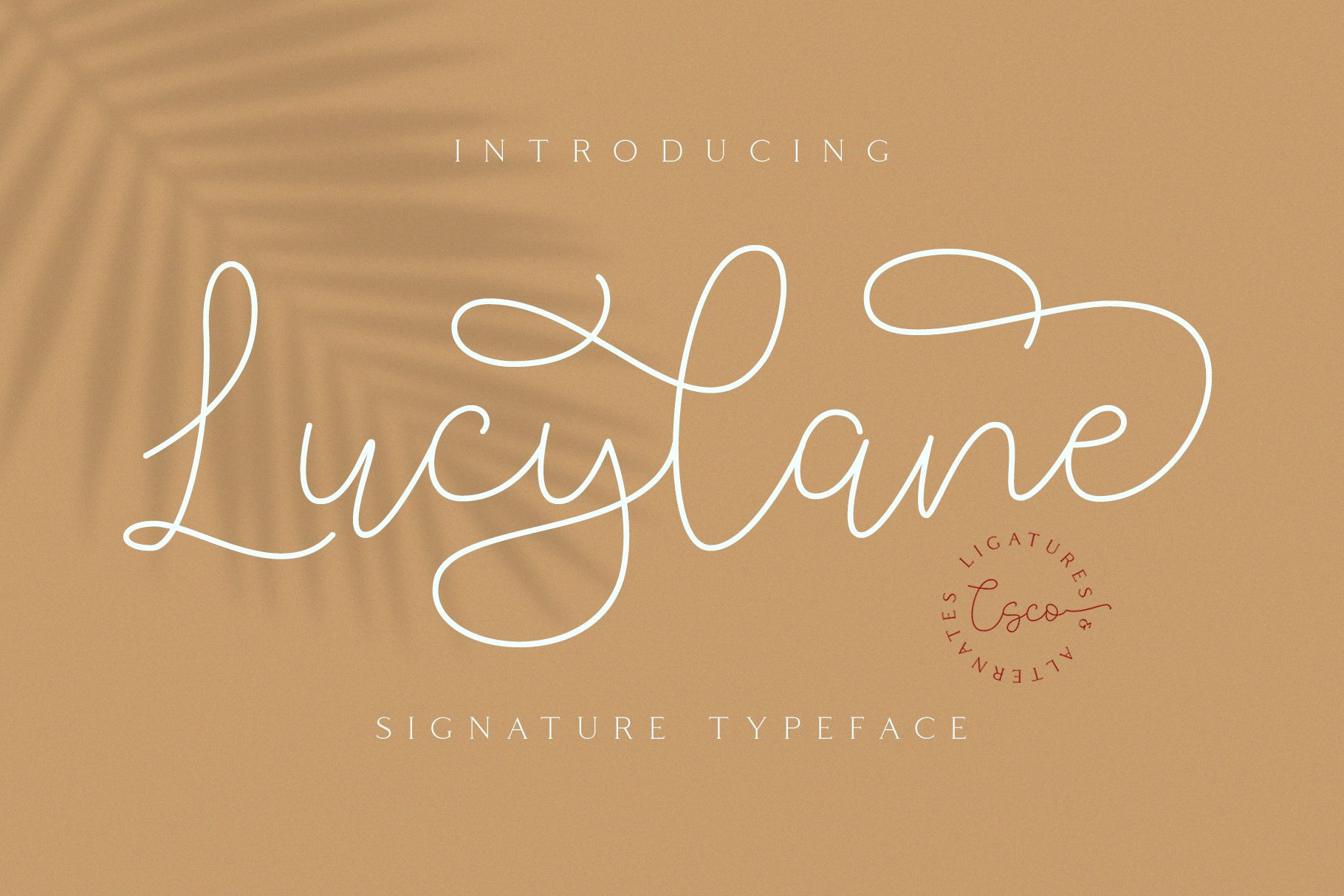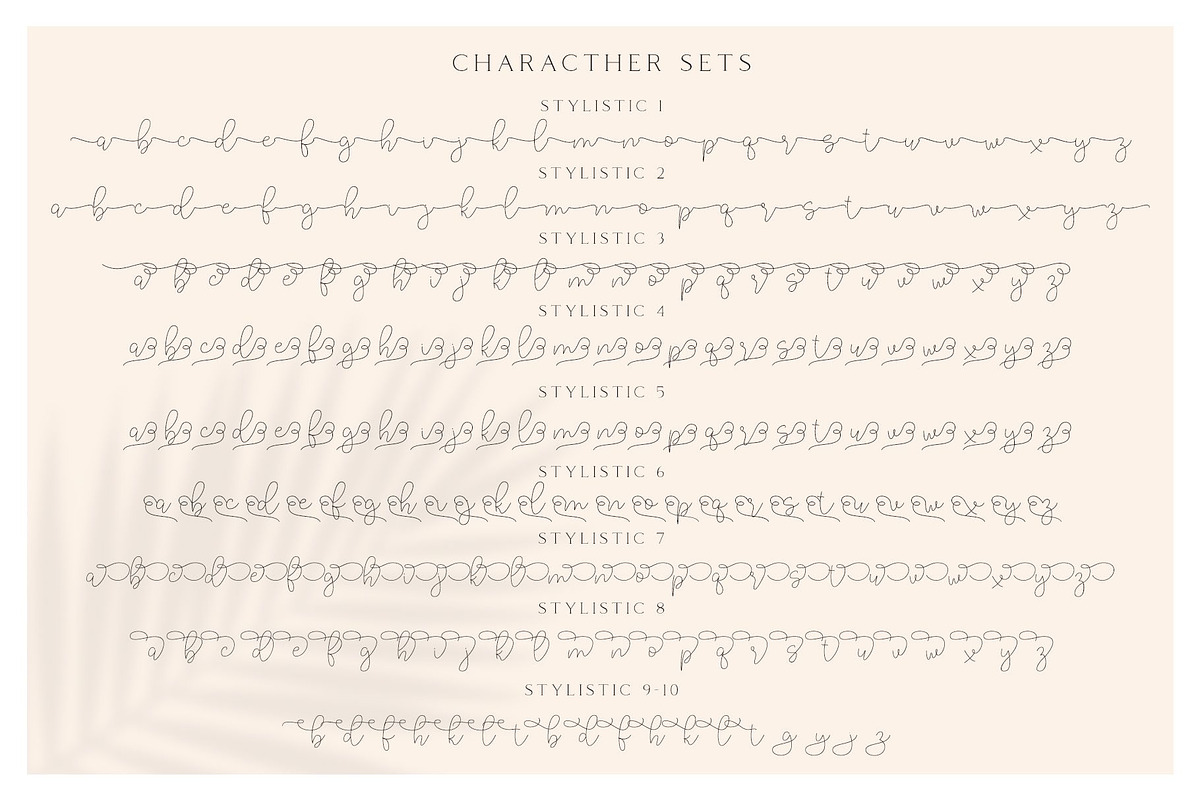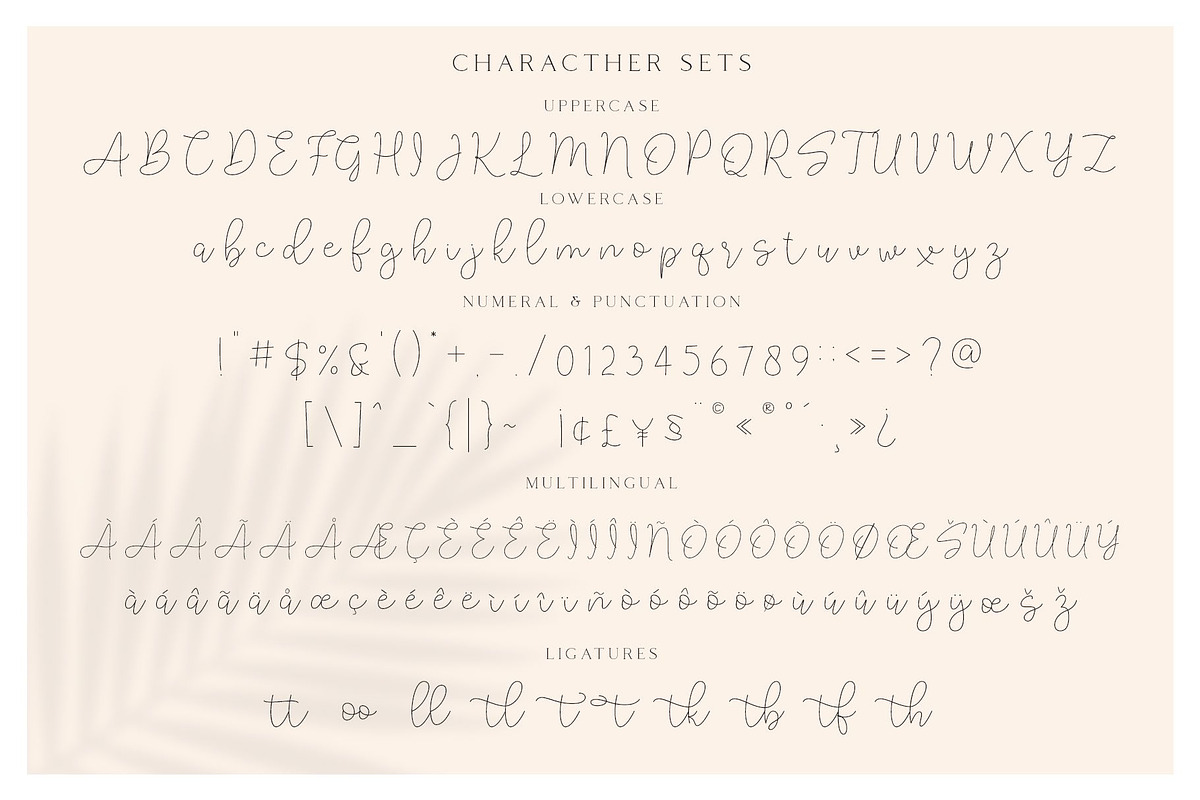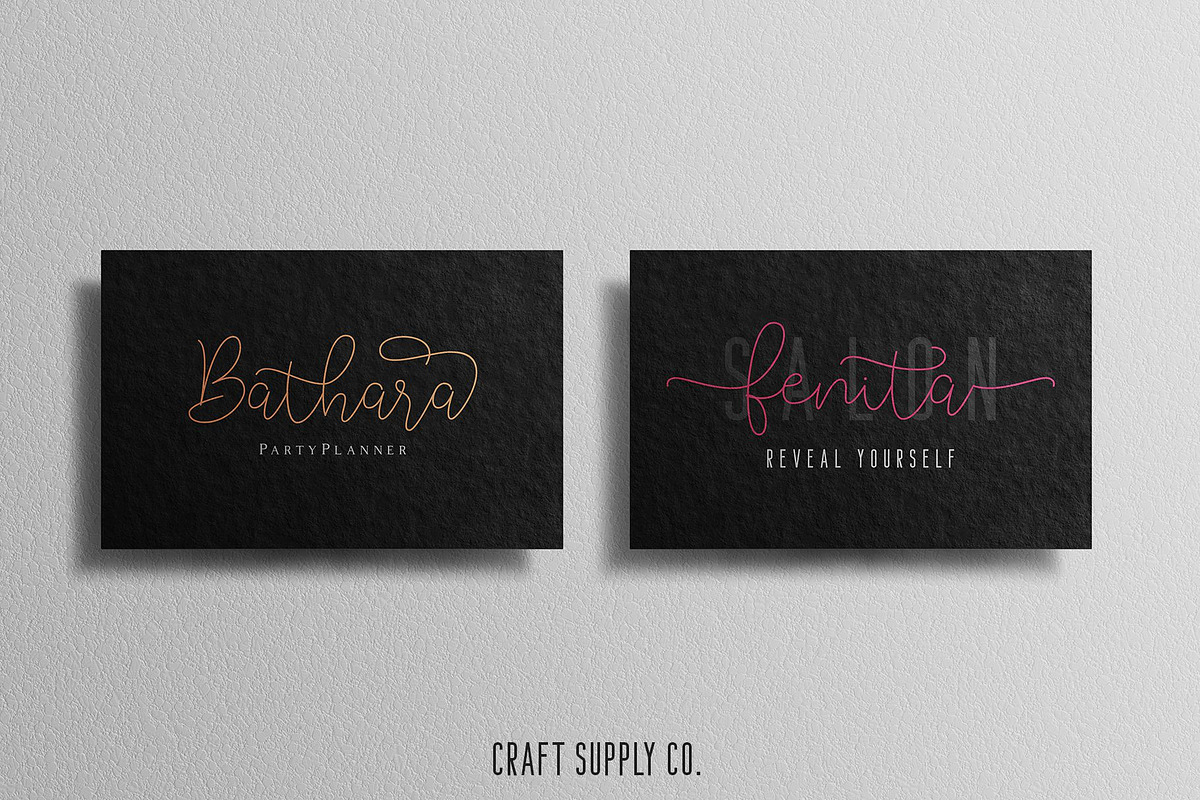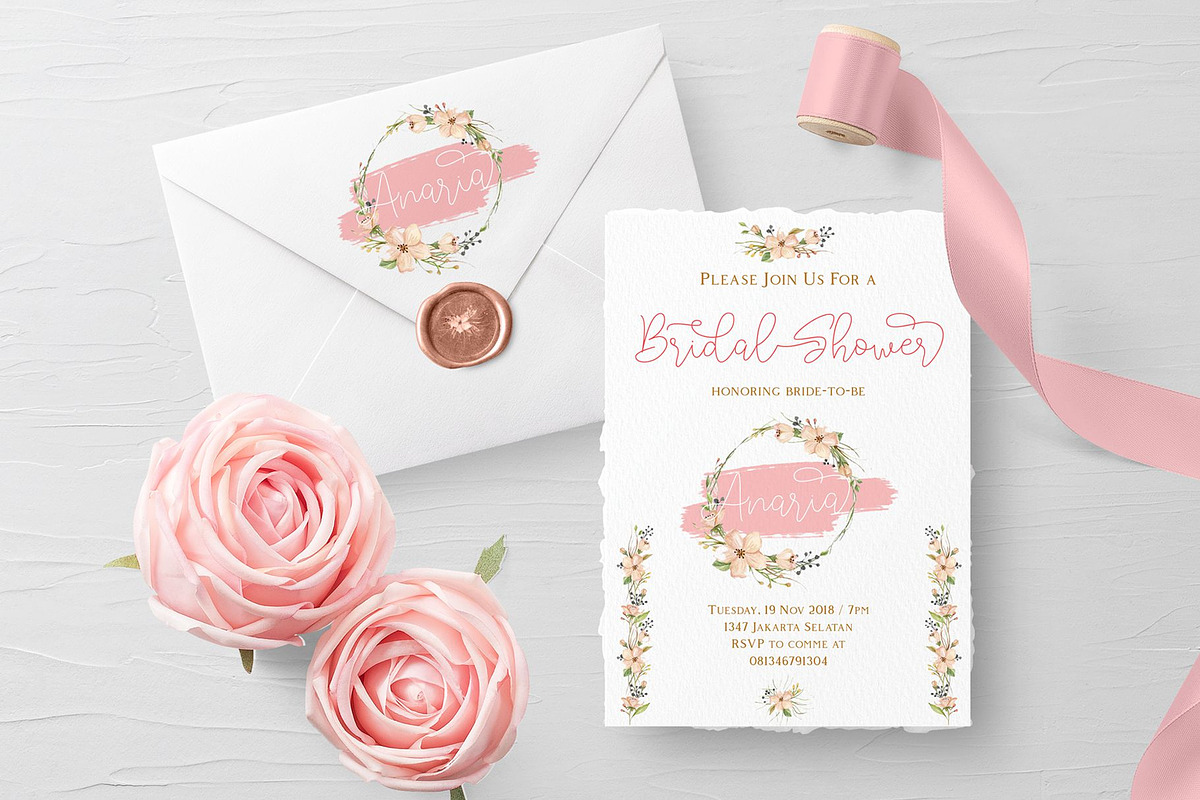
Lucylane - Signature Typeface
Introducing Lucylane - Signature Typeface
Lucylane - Signature Typeface is a free-flowing monoline, the two style typeface exploits the common letter-to-letter transitions of the typical cursive hand by utilizing two style points controlled within the machinations of OpenType Contextual Alternates. It can be used to create almost all types of design projects like print materials. Just use your imagination and some graphic design set in Extras, your project will become more alive and look great than ever with one of the Lucylane font.
You want to make a greeting card or a package design, or even a brand identity, craft design, any DIY project, book title, wedding invitation, identity card, packaging, or any purpose to make your art / design project look pretty and trendy? Feel free to play with all the whole alternates!
- Uppercase and Ligatures
- Special Ligatures (tt oo ll tl t t tk tb tf th)
- Stylistic Alternates (up to 10 Style for each alphabet)
- Accents (Multilingual characters) (AÀÁÂÃÄÅCÇDÐEÈÉÊËIÌÍÎÏNÑOØÒÓÔÕÖUÙÜÚÛWYÝŸỲŸÆŒßÞ)